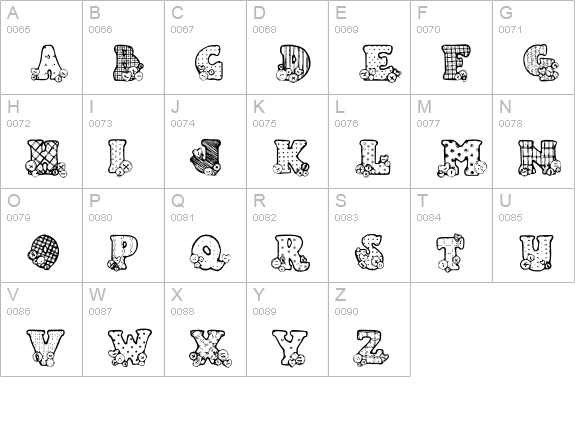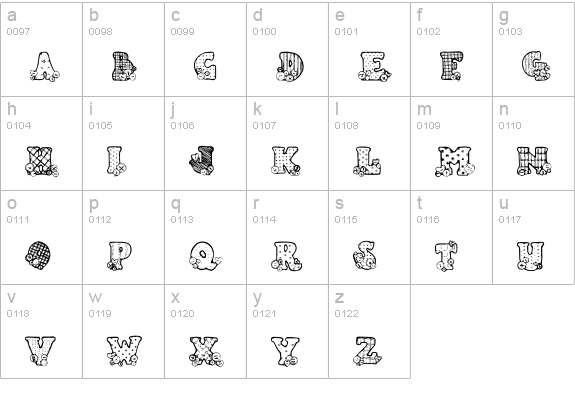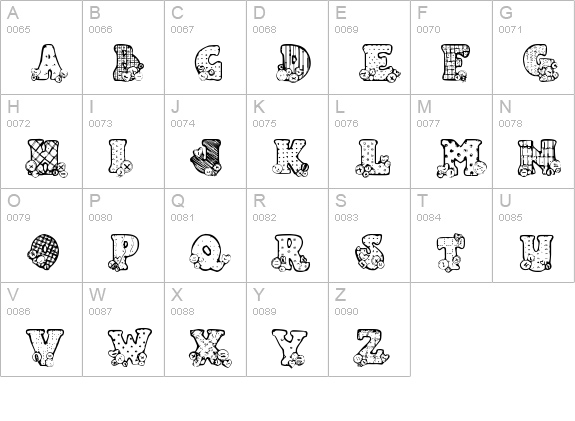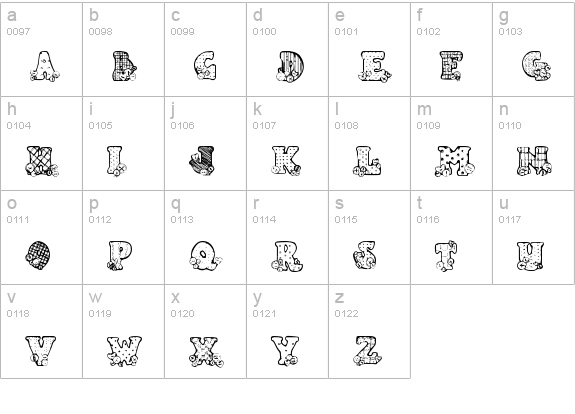
Country Button Font Details
Country Button font is a charming and versatile typeface that exudes a rustic and nostalgic feel. This font is perfect for adding a touch of country charm to your designs, whether for branding, packaging, invitations, or any other creative project. With its bold yet playful style, Country Button font is sure to make your text stand out and leave a lasting impression. The best part is that Country Button font is completely free to download at FontsMarket.com. This means you can easily access this unique and eye-catching font without any cost, making it an excellent choice for designers on a budget or anyone looking to add a touch of country flair to their projects. Don't miss out on this fantastic opportunity to enhance your designs with the delightful Country Button font - download it for free today!